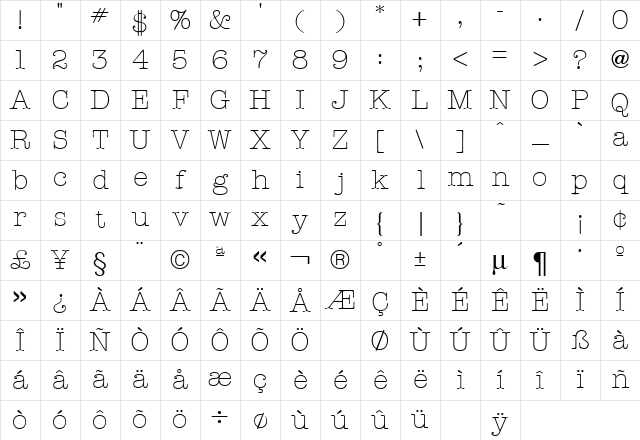
American Type Light Regular Free Font
American Type Light Regular
Design Context for American Type Light
American Type Light is a composed and adaptable typeface that performs quietly and consistently across a wide range of design contexts. Its slender proportions lend an understated elegance to any composition.